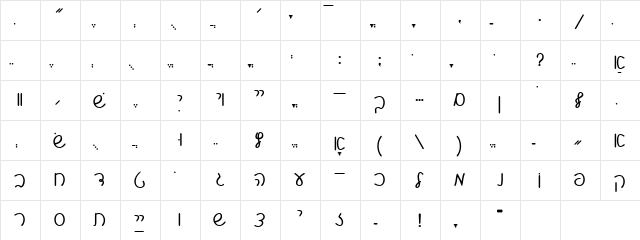
Shalom Script
| Style | Script |
Design Context for Shalom Typeface
Shalom flows with the natural rhythm of handwritten lettering, making it ideal for designs that call for warmth and personal expression.
Font Pairing: Combine Shalom with a simple geometric sans for maximum contrast — the tension between flowing curves and clean structure is a classic typographic pairing.
Pro Tip: Pair Shalom with a clean sans-serif for supporting text. The contrast between fluid script and geometric structure creates an elegant typographic hierarchy.